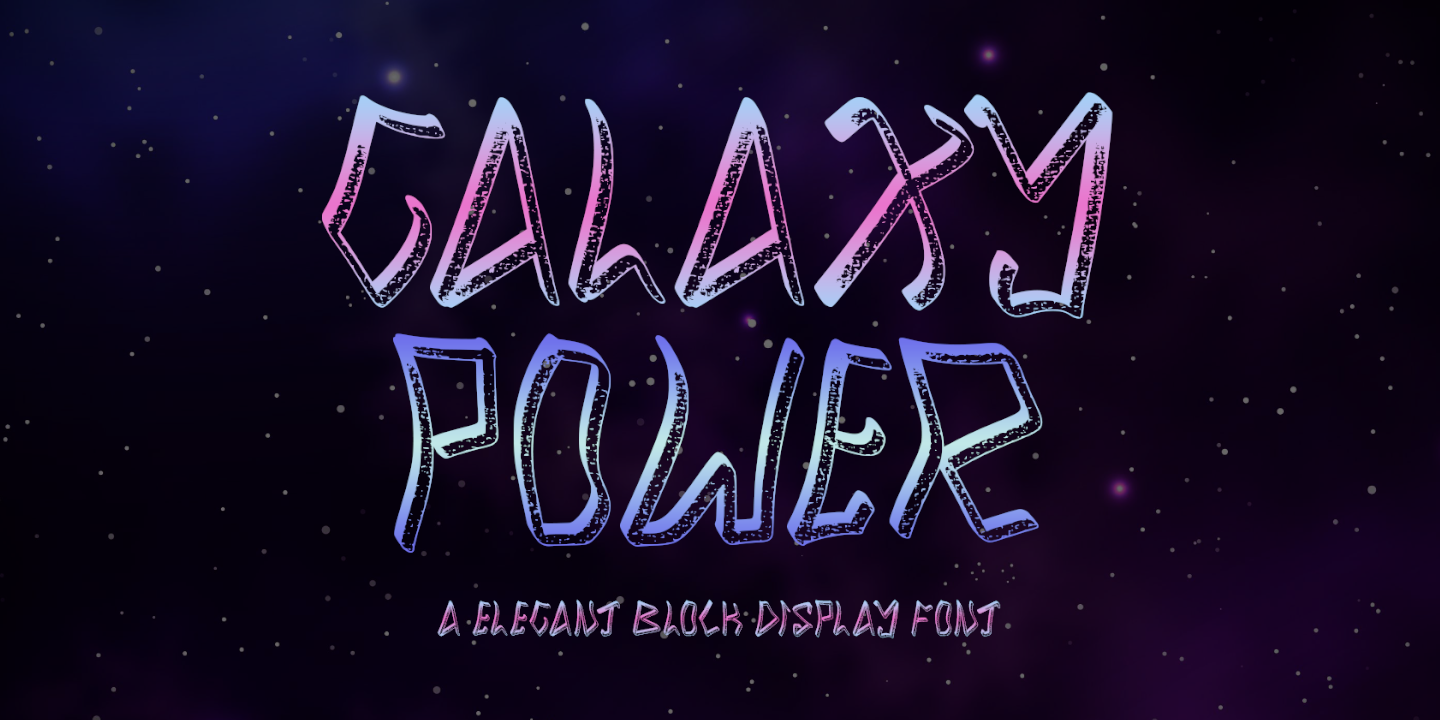
Discover the dynamic Galaxy Power Font Free Download, a bold graffiti typeface by Isroni Yoga Prasetya that exudes a futuristic, urban energy. This font is perfect for creating a vibrant, street-inspired aesthetic. However, please note that you must purchase this font for commercial use. For testing purposes, you can download it for free and explore its bold style.
The Galaxy Power Font is ideal for various applications, such as designing eye-catching posters, crafting edgy logos, creating urban-themed merchandise, or adding a bold touch to social media graphics and advertisements. Its versatility and graffiti-inspired design make it a top choice for projects that demand a modern, rebellious vibe.
Why is the Galaxy Power Font Free Download so exciting? Its spacey, futuristic design, complete with star-filled capital letters, offers a unique blend of urban grit and cosmic flair. The font’s heavy, textured strokes ensure your designs stand out with a powerful, attention-grabbing appeal, perfect for creative branding.
The Galaxy Power Font family includes a single style, Galaxy Power Regular, providing a focused, impactful design for creative flexibility. This streamlined typeface is ideal for both print and digital media, ensuring a consistent, bold impact across platforms.
Elevate your projects with the Galaxy Power Font Free Download today. Test its bold, urban charm and see how it transforms your creative work into something striking and unforgettable. Download now and bring a touch of futuristic graffiti flair to your designs!